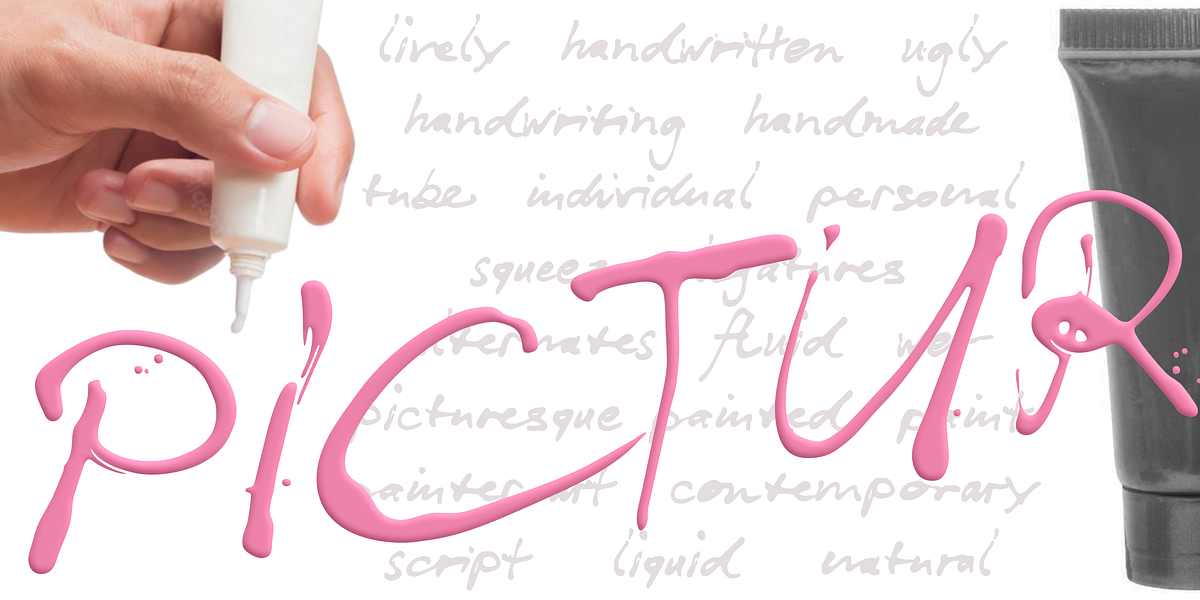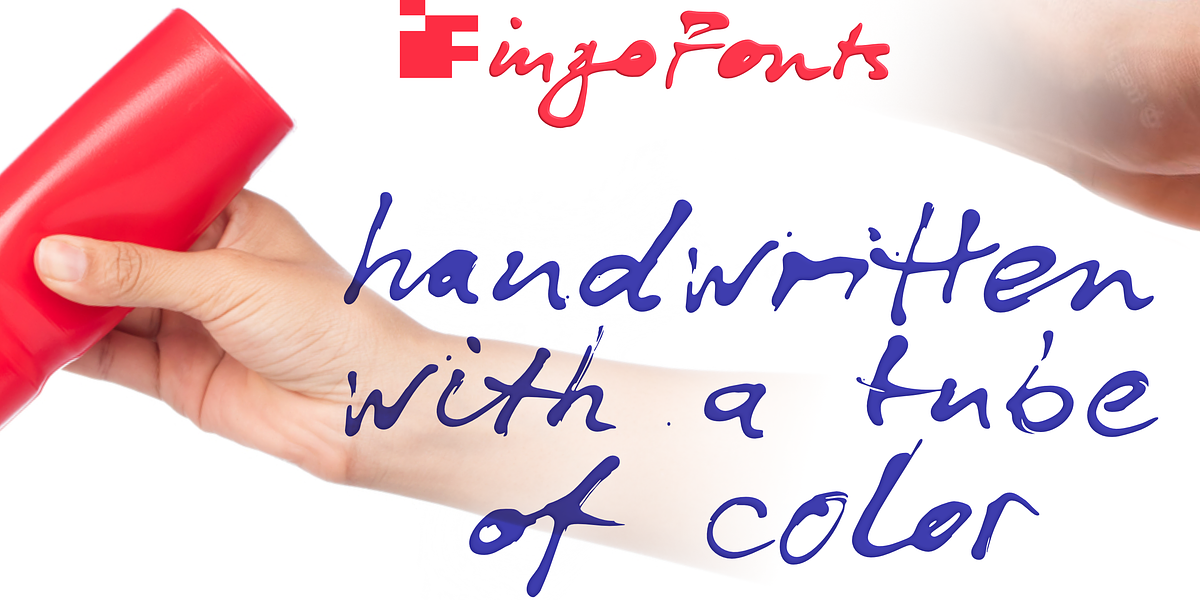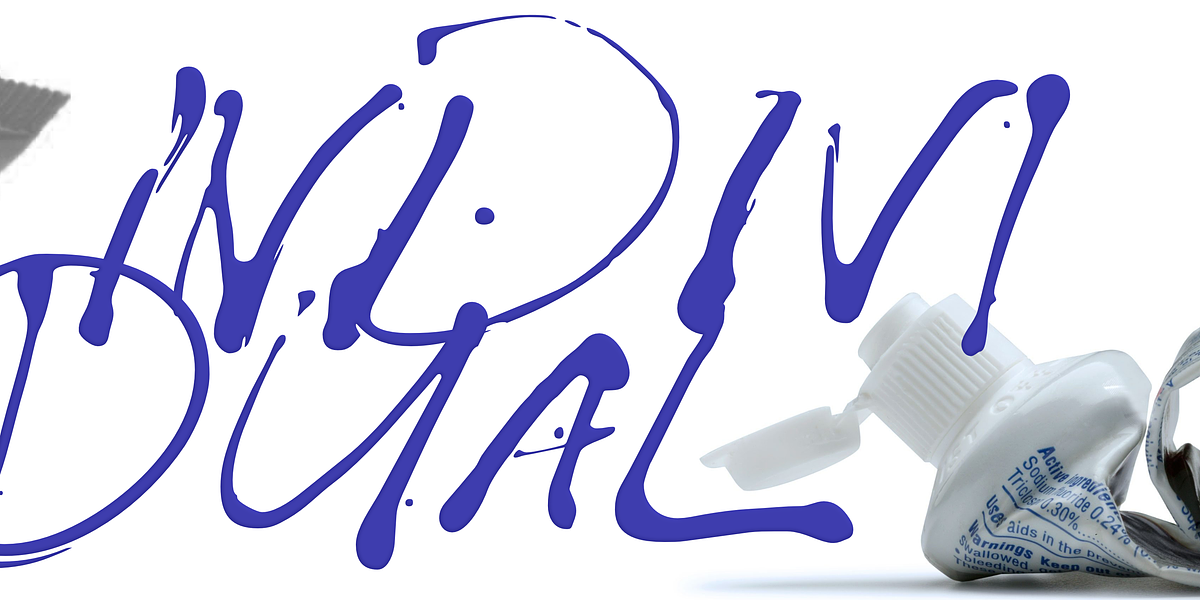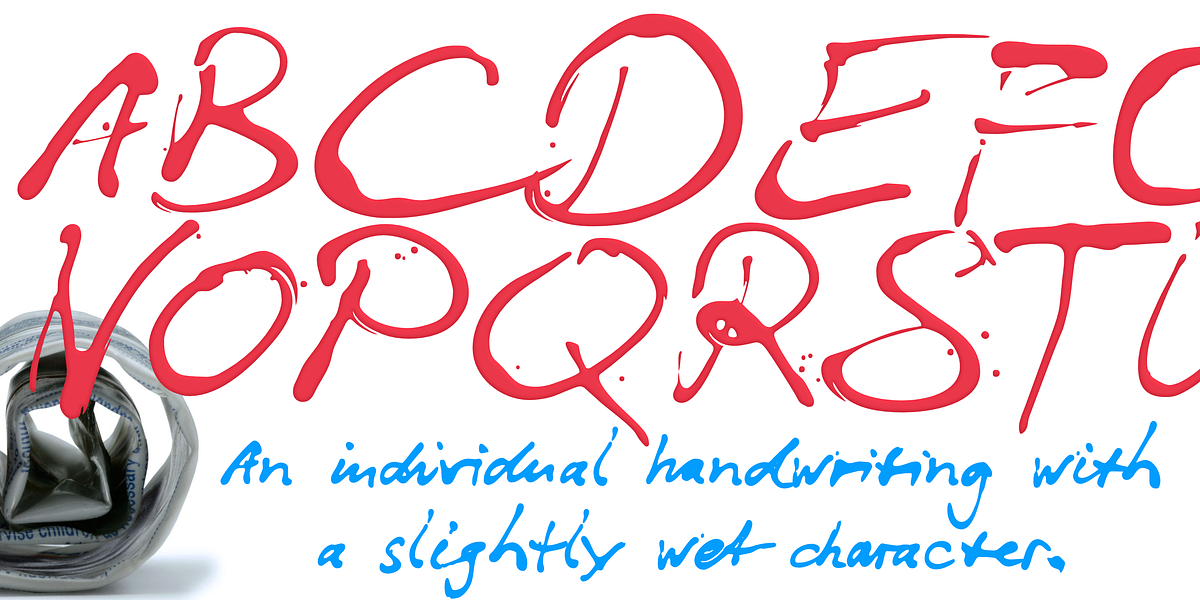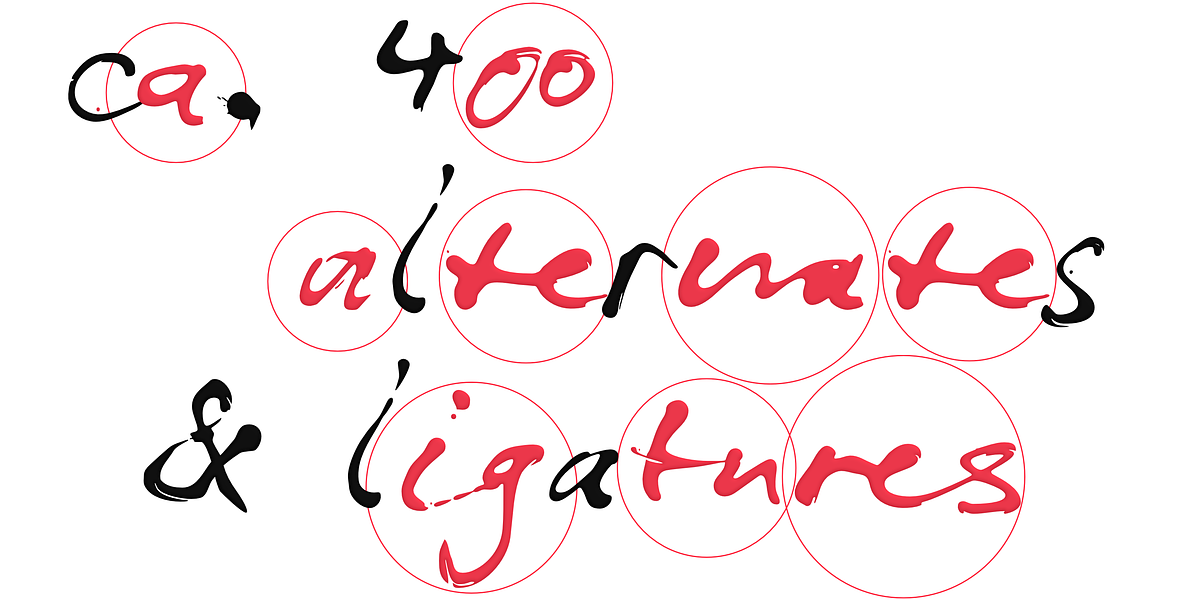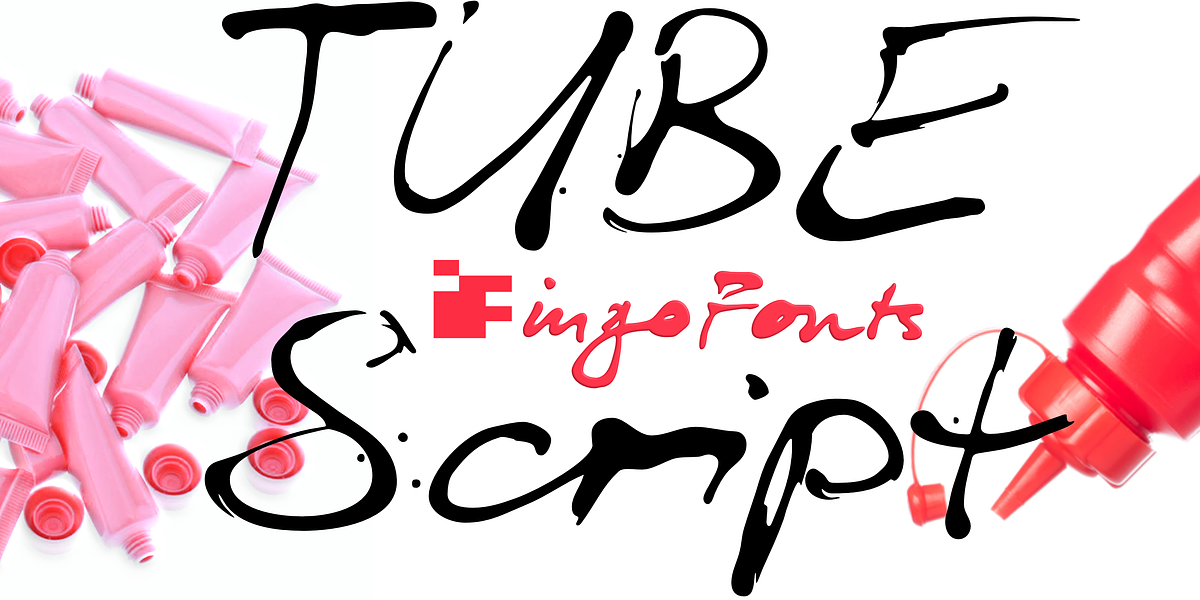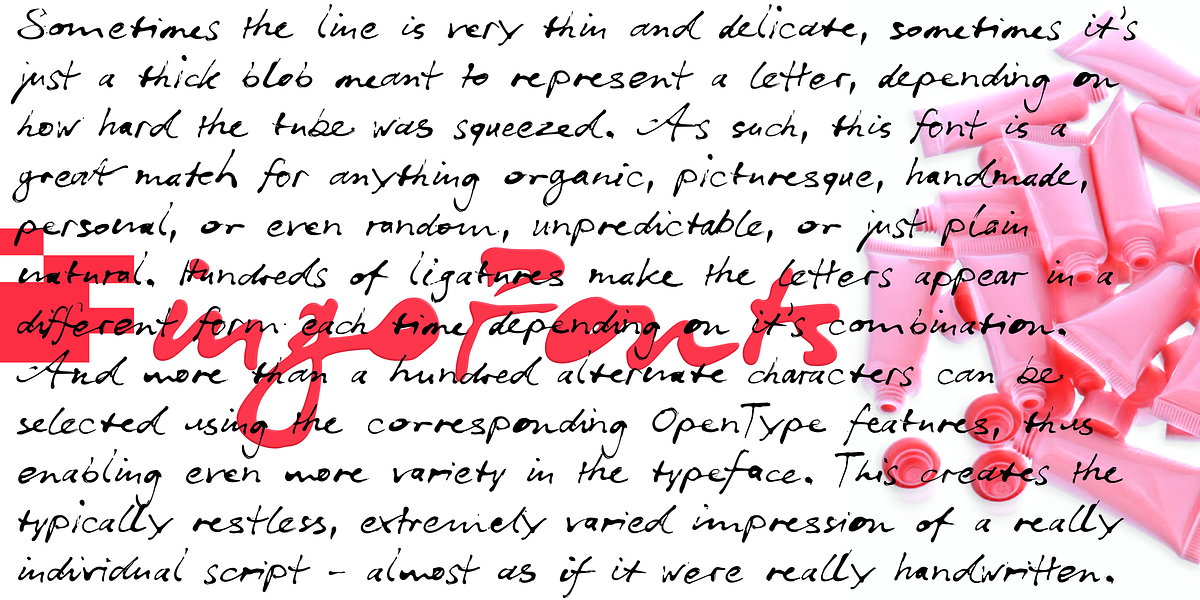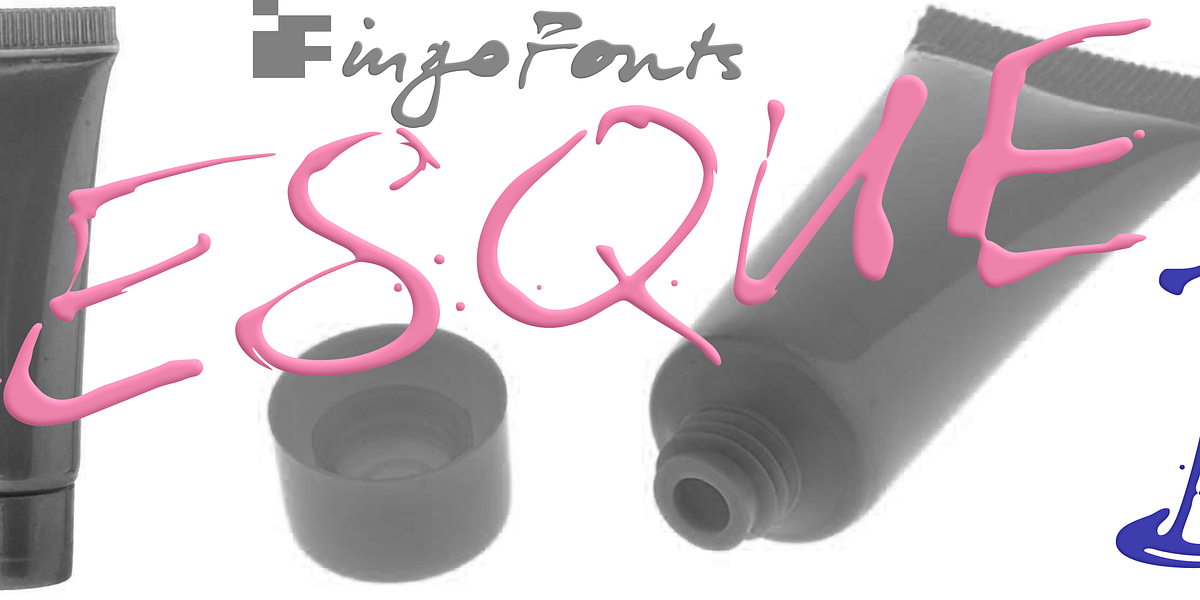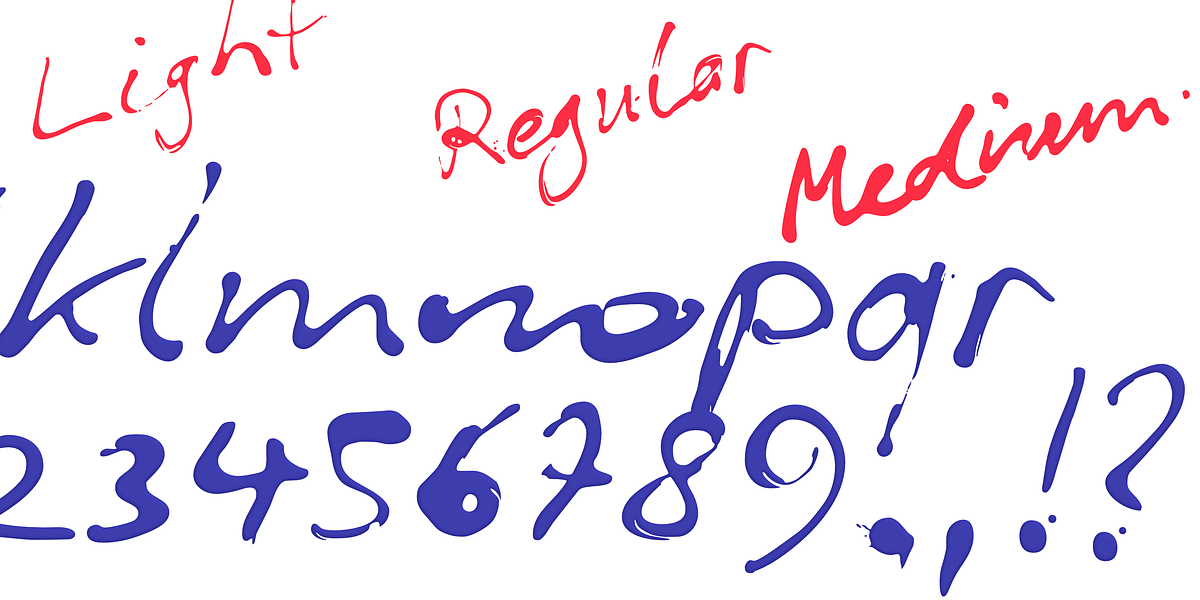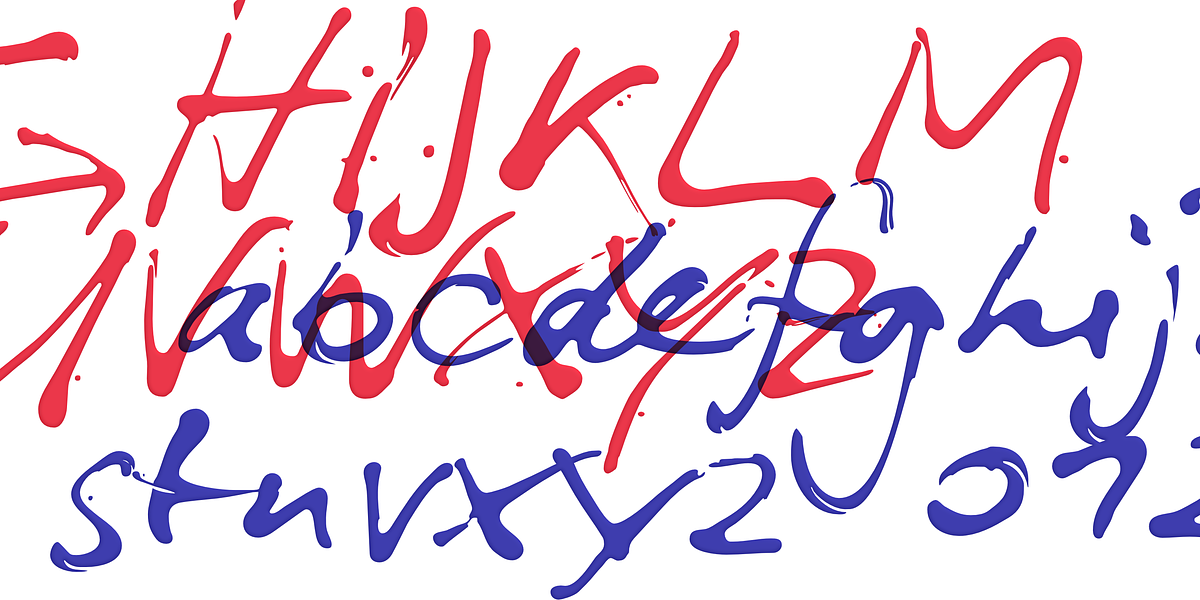
Tube Script
This handwritten script font simulates the appearance of paint being applied with a tube. The line thickness varies organically, creating thick blobs and thin strokes. The font includes hundreds of ligatures and alternate characters for even more variety and a truly individualistic look.